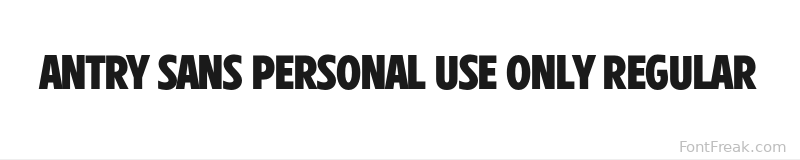
Antry Sans PERSONAL USE ONLY Italic
Antry Sans PERSONAL USE ONLY Regular
About Antry Sans PERSONAL USE ONLY Italic
Antry Sans PERSONAL USE ONLY Italic is a modern sans-serif font designed by Mans Greback, characterized by its sleek, contemporary aesthetic. This font features a clean and minimalist design, with a medium stroke weight that provides a balanced appearance. The italic style adds a dynamic flair, allowing for effective emphasis in various design contexts. The letters exhibit consistent spacing, contributing to readability while maintaining a sophisticated look. The absence of excessive decorative elements makes Antry Sans versatile, appealing to a broad range of design preferences.
This font is particularly well-suited for personal projects, including wedding invitations, where its elegant flair can enhance the overall presentation. It also works beautifully on social media graphics, allowing content creators to engage their audience with stylish text. Restaurant menus can benefit from Antry Sans, as its modern touch gives a fresh feel to the dining experience, making dishes appear more enticing. Additionally, the font's clean lines make it an excellent choice for branding materials, such as logos and business cards, providing a professional image for small business owners.
What sets Antry Sans apart is its ability to merge functionality with style. Its understated elegance ensures that it can fit seamlessly into a variety of design contexts, making it an essential tool for anyone seeking to create visually appealing content. Whether for print or digital media, Antry Sans offers a modern sophistication that enhances every project it graces.